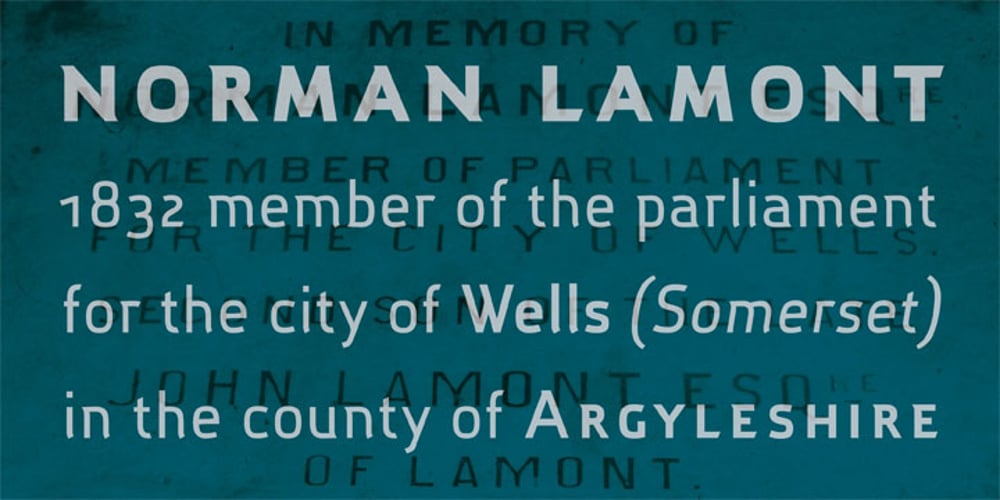
Lamont Pro Font Family was designed by Michael Herold and published by URW Type Foundry. Lamont Pro contains 8 styles and family package options. The Lamont font family translates the taper character of the typeface from 1840 a slab in a modern, new and unique design. The font, despite the open and wide basic form, with its tight tracking, is intended to be space saving, yet still highly legible, even in small sizes. Lamont is an elegant type family with 8 weights including plenty of ligatures, true smalls caps for many languages and 5 different numbersets. This makes the font versatile and perfectly useable for many applications and design tasks.